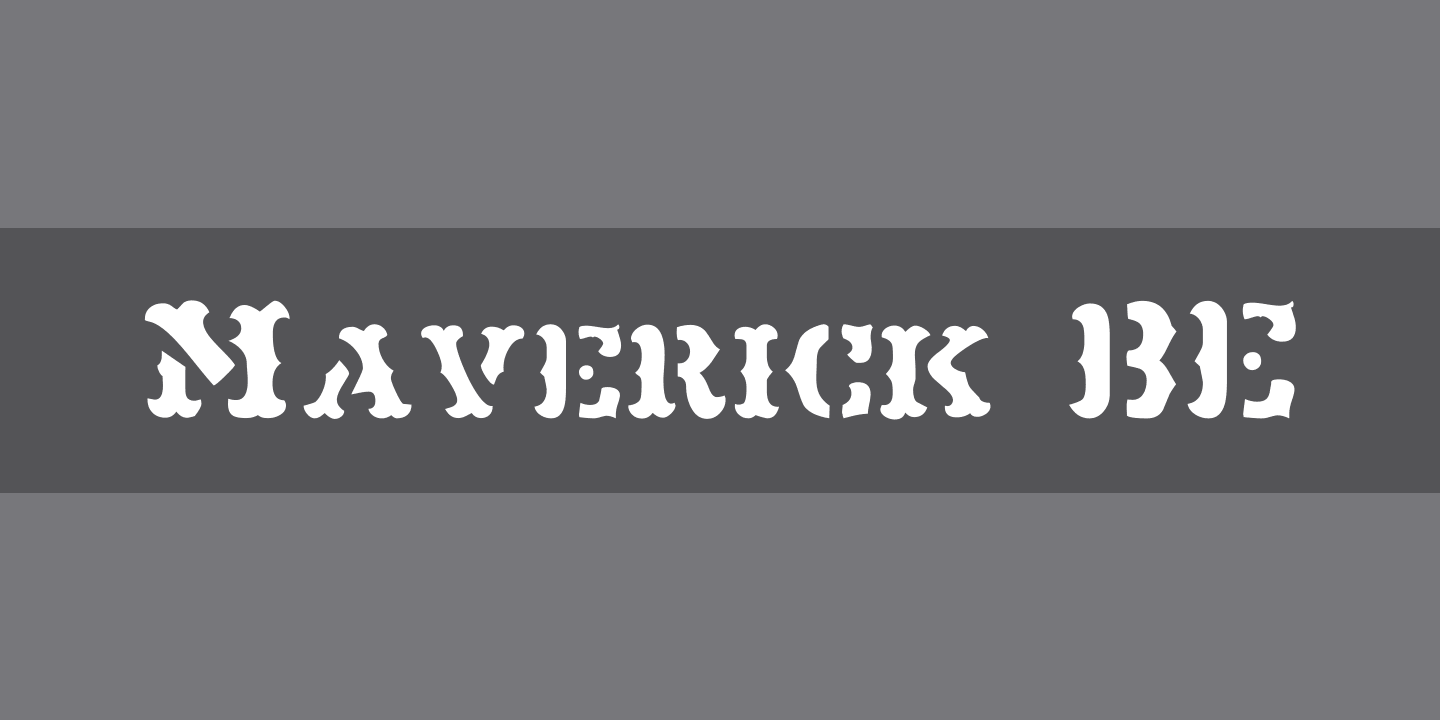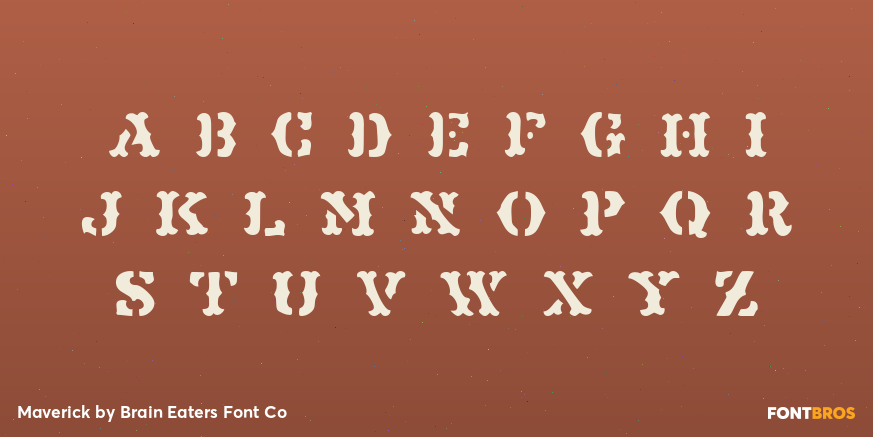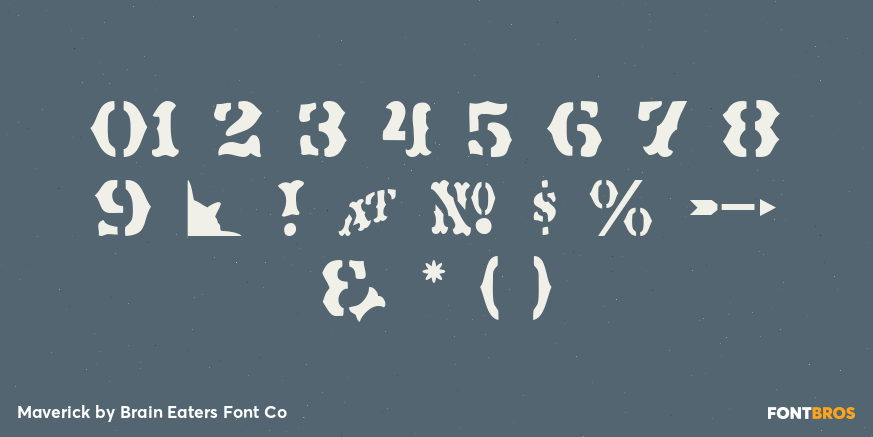
Maverick
Font Family by Brain Eaters Font Co
Maverick is a serif display font with a distinctly historical, retro feel, giving headlines and artwork an old-time character that feels bold, familiar, and full of attitude. Its single-style format keeps the look focused, making it a straightforward choice when you want typography with vintage personality.
Well suited to posters, signage, themed branding, apparel graphics, and other decorative display work, it brings a nostalgic voice that can lean classic Americana or throwback commercial depending on how you use it. Offered as a free download from Brain Eaters Font Co, Maverick is an easy pick for projects that need a period-inspired serif with presence.